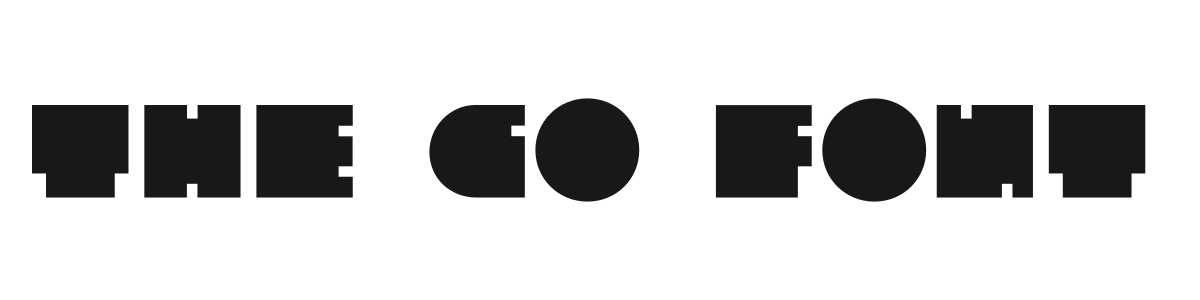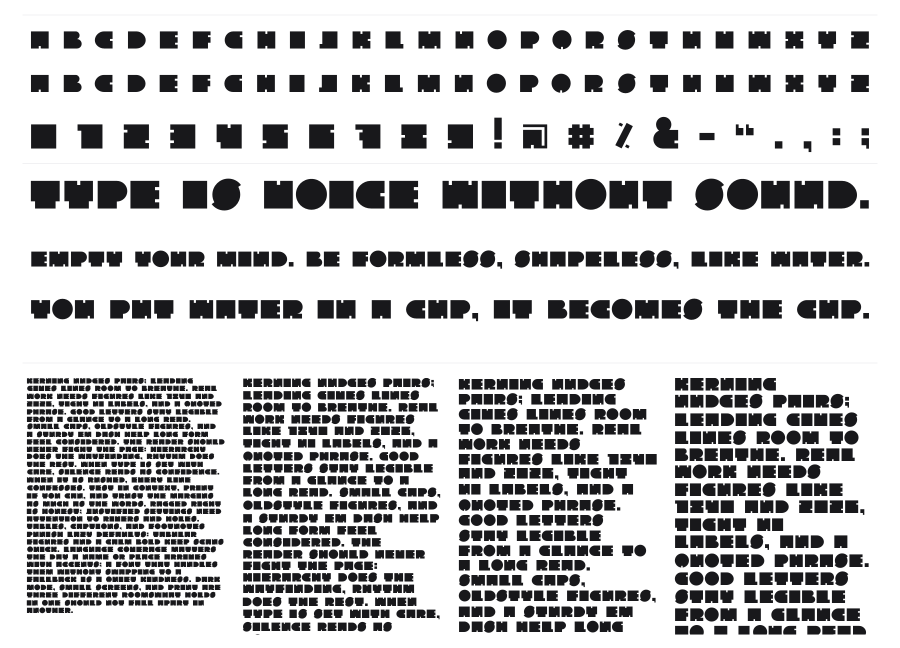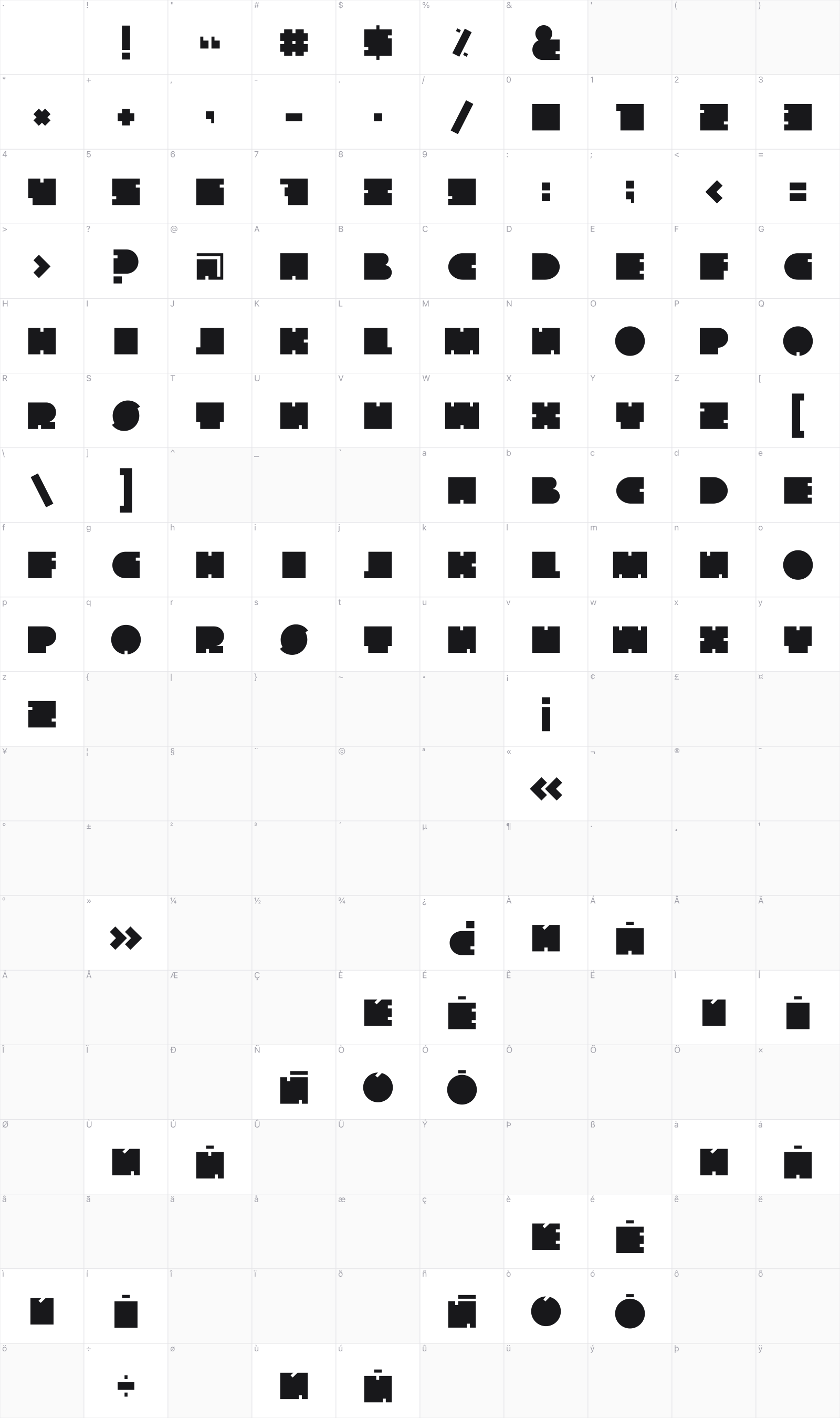
The Go Font
The Go Font is an ultra-heavy geometric display face inspired by the indie band The Go Find, built from bold square and circular modules jammed together into a dense, rhythmic line. Counters are nearly swallowed by the extreme weight, giving each character a distinctive blocked-out silhouette. It carries a playful, poster-ready energy that works well for music branding, children's content, and anything that needs to be loud without being aggressive.